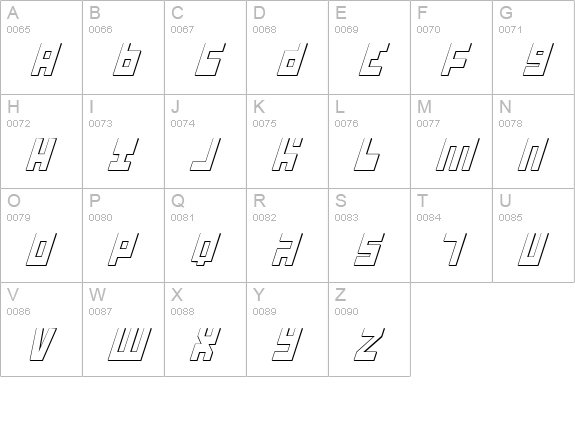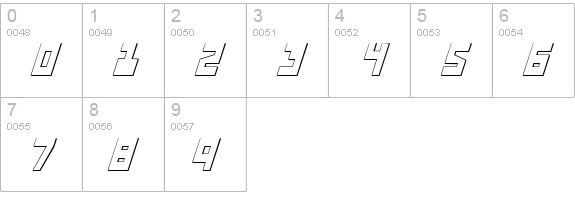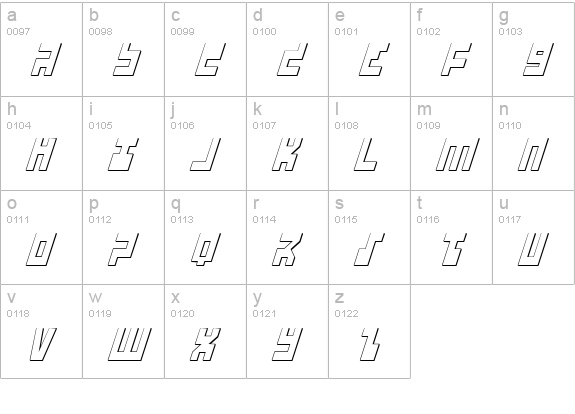
UFO Hunter 3D Italic is a distinctive, italic variant in the UFO typeface family \xE2\x80\x94 well suited to design and typography projects.
Unleash your inner extraterrestrial explorer with UFO Hunter 3D Italic font! This futuristic and dynamic font is perfect for adding a touch of otherworldly excitement to your designs. Whether you're creating a sci-fi movie poster, a space-themed website, or a galactic event flyer, UFO Hunter 3D Italic font will transport your audience to a whole new dimension. This font features sleek lines and a 3D effect that make it truly stand out. Its italic style adds a sense of motion and energy, perfect for conveying the sense of a fast-paced chase through the cosmos. Let your creativity soar as you incorporate UFO Hunter 3D Italic font into your projects and captivate your viewers with its unique look. Best of all, UFO Hunter 3D Italic font is completely free to download at FontsMarket.com. So don't miss out on this fantastic opportunity to elevate your designs with this one-of-a-kind font. Download it today and take your creations to infinity and beyond!